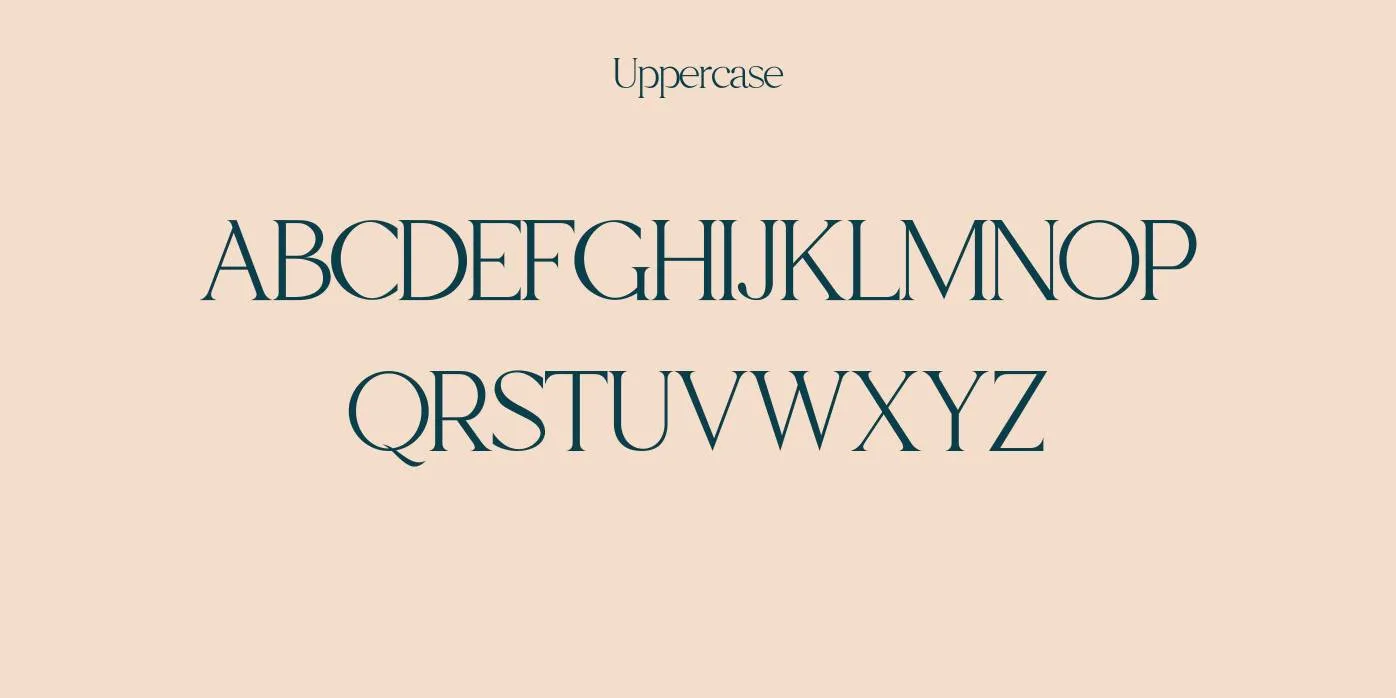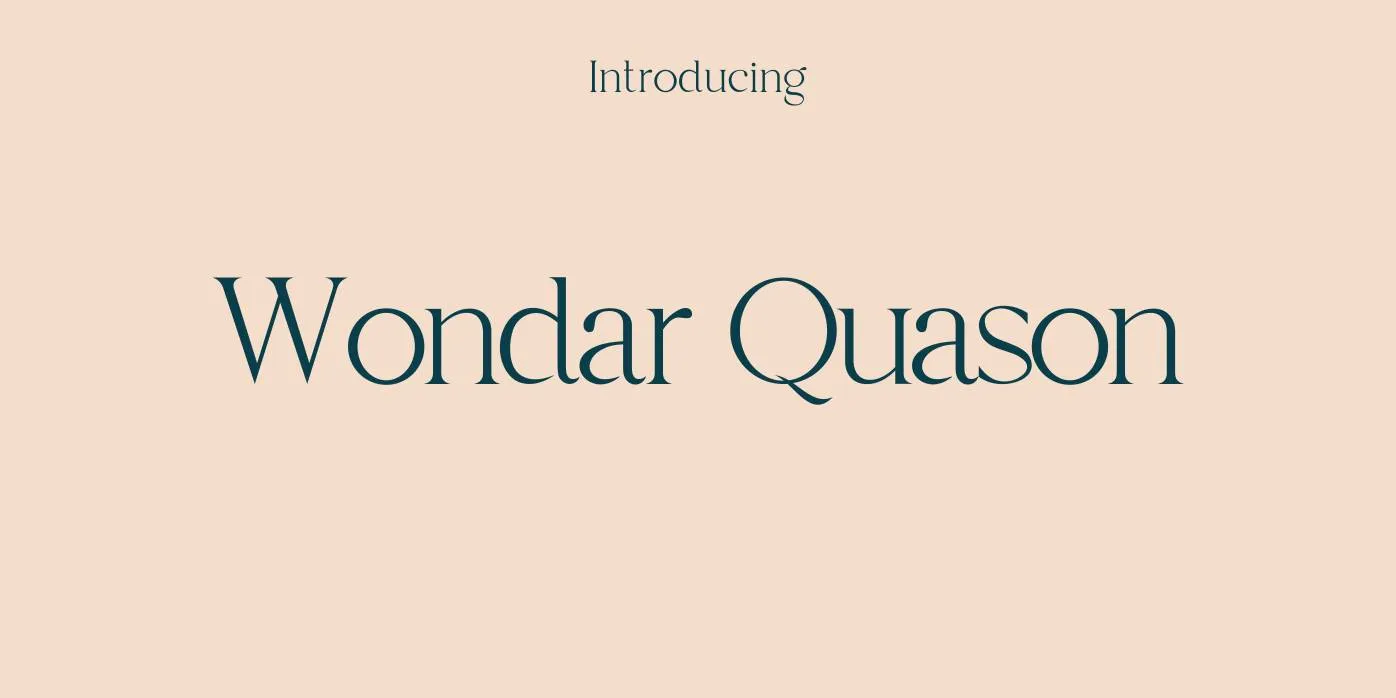
Wondar Quason Font
Today we presenting a very interesting typeface Wondar Quason Font. This stunning Serif font was designed by Gilang Maulana and published by Maulana Creative. It is a very attractive and classy font that has a very modern look. This is a thin strokes serif typeface that has x-height characters and lovely strokes.